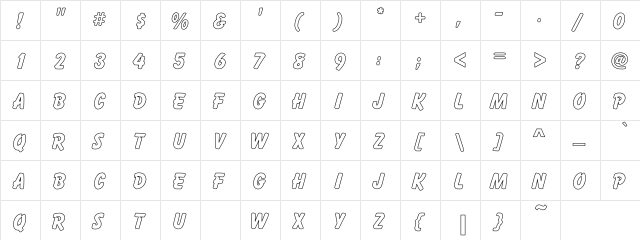
Formanek Hollow Regular
Design Context for Formanek Hollow Typeface
Formanek Hollow is a composed and adaptable typeface that performs quietly and consistently across a wide range of design contexts.